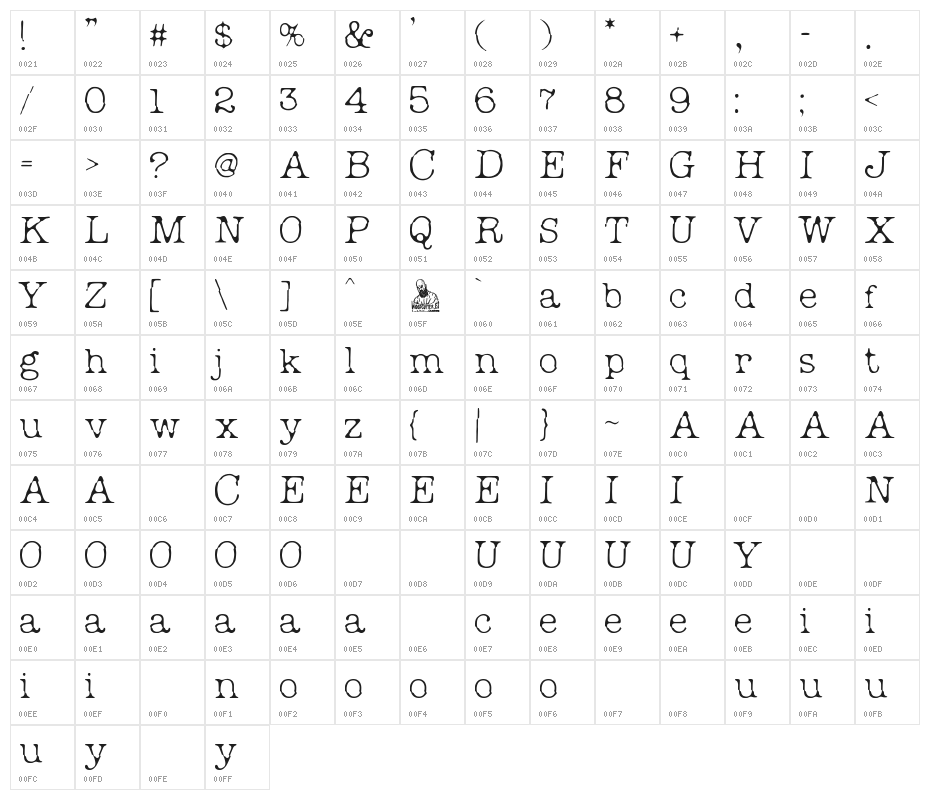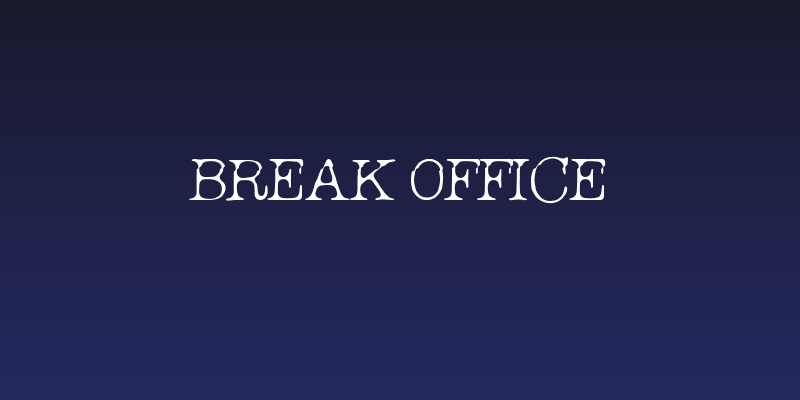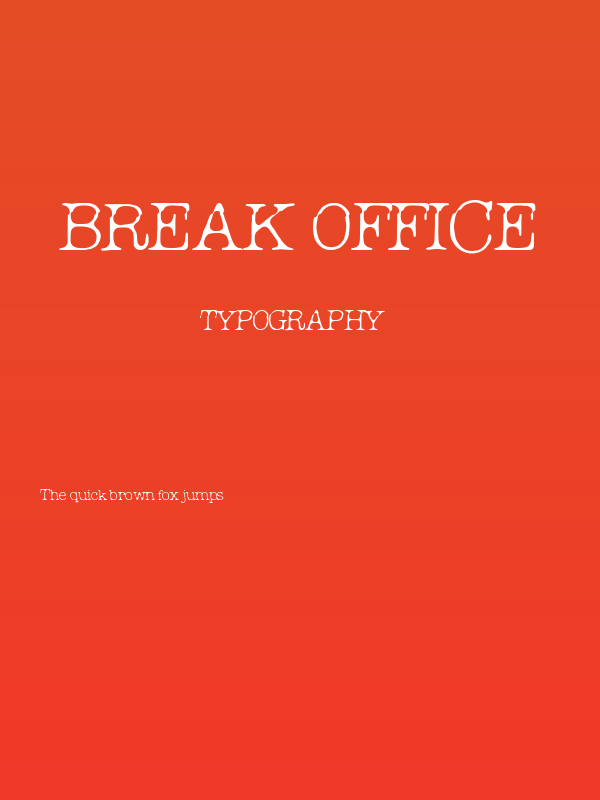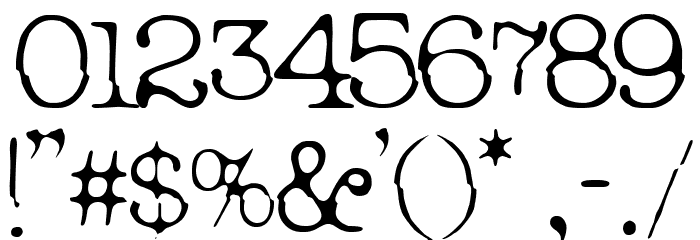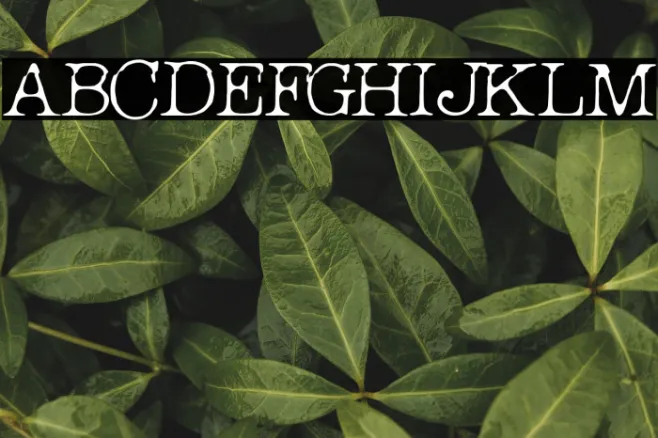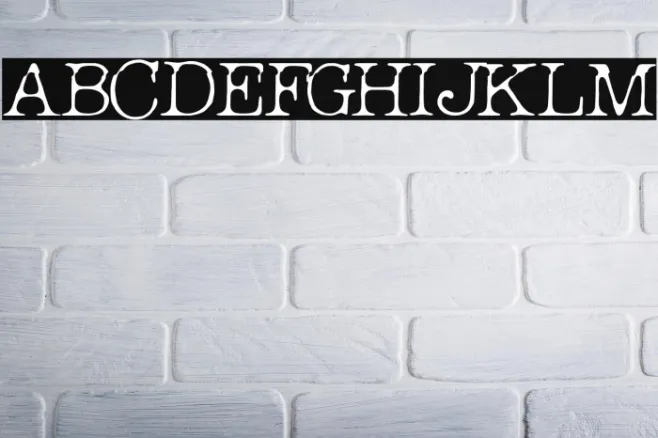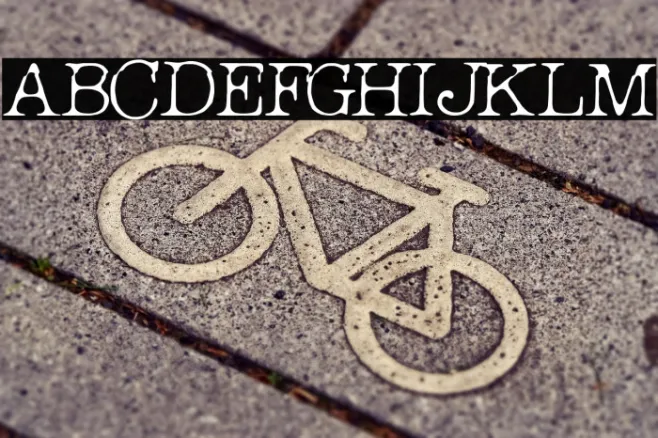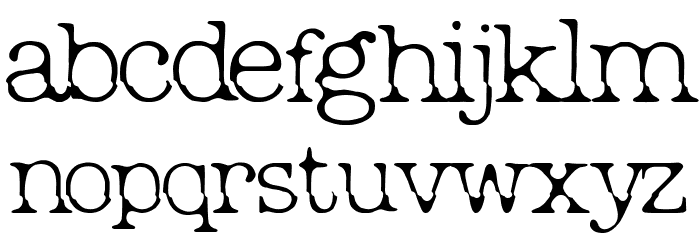
Break Office Font
Break Office Description
This font features a unique and playful design with a decorative flair. The characters have a whimsical, almost hand-drawn quality, with irregular strokes and playful curves. The uppercase letters are bold and commanding, while the lowercase letters maintain a consistent style with slightly exaggerated serifs. Numbers and special characters follow the same playful aesthetic, making this font ideal for creative projects. The overall appearance is both vintage and modern, offering a versatile option for various design needs.
| Proposed Projects | Ideal for creative projects such as posters, invitations, branding, and packaging design. |